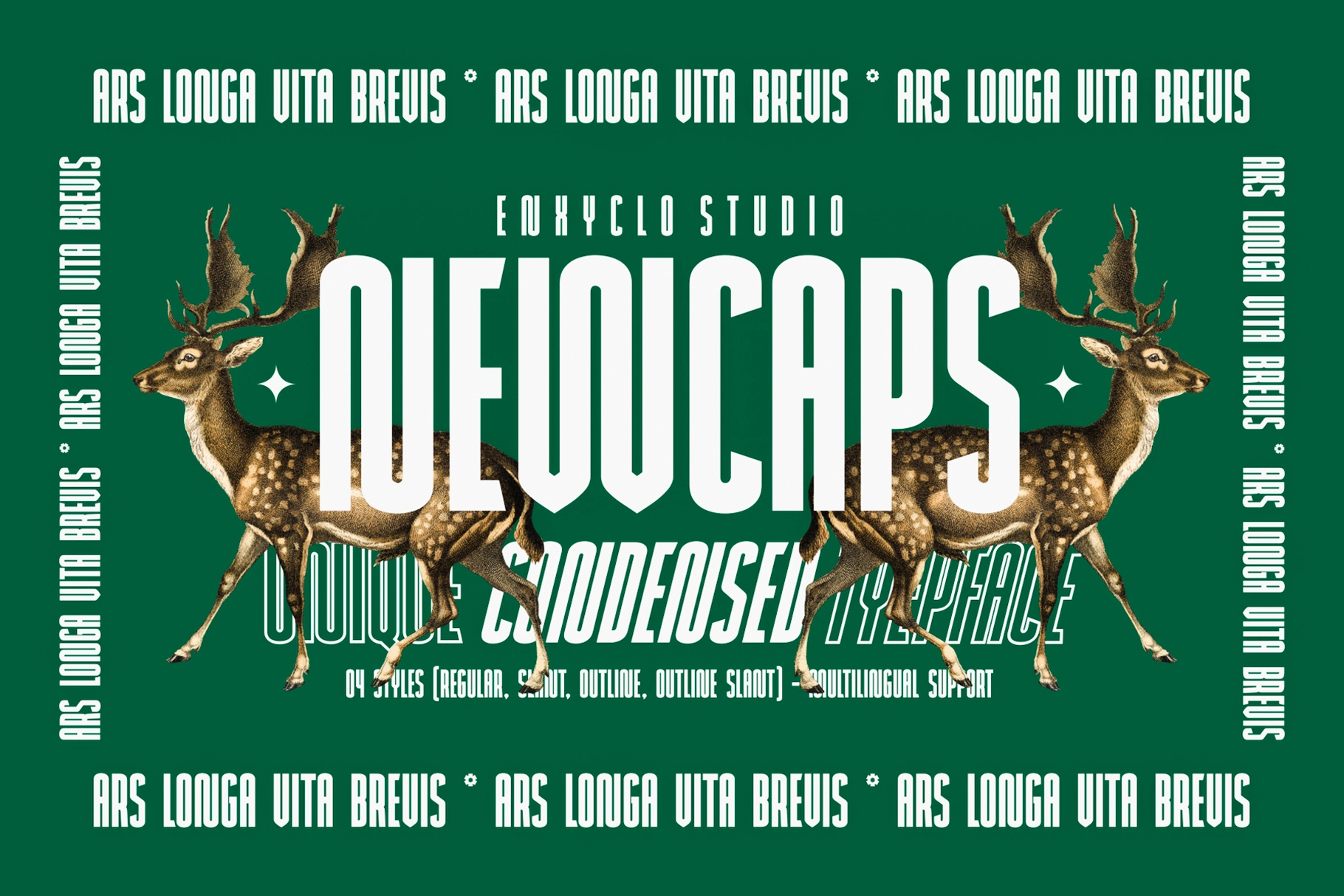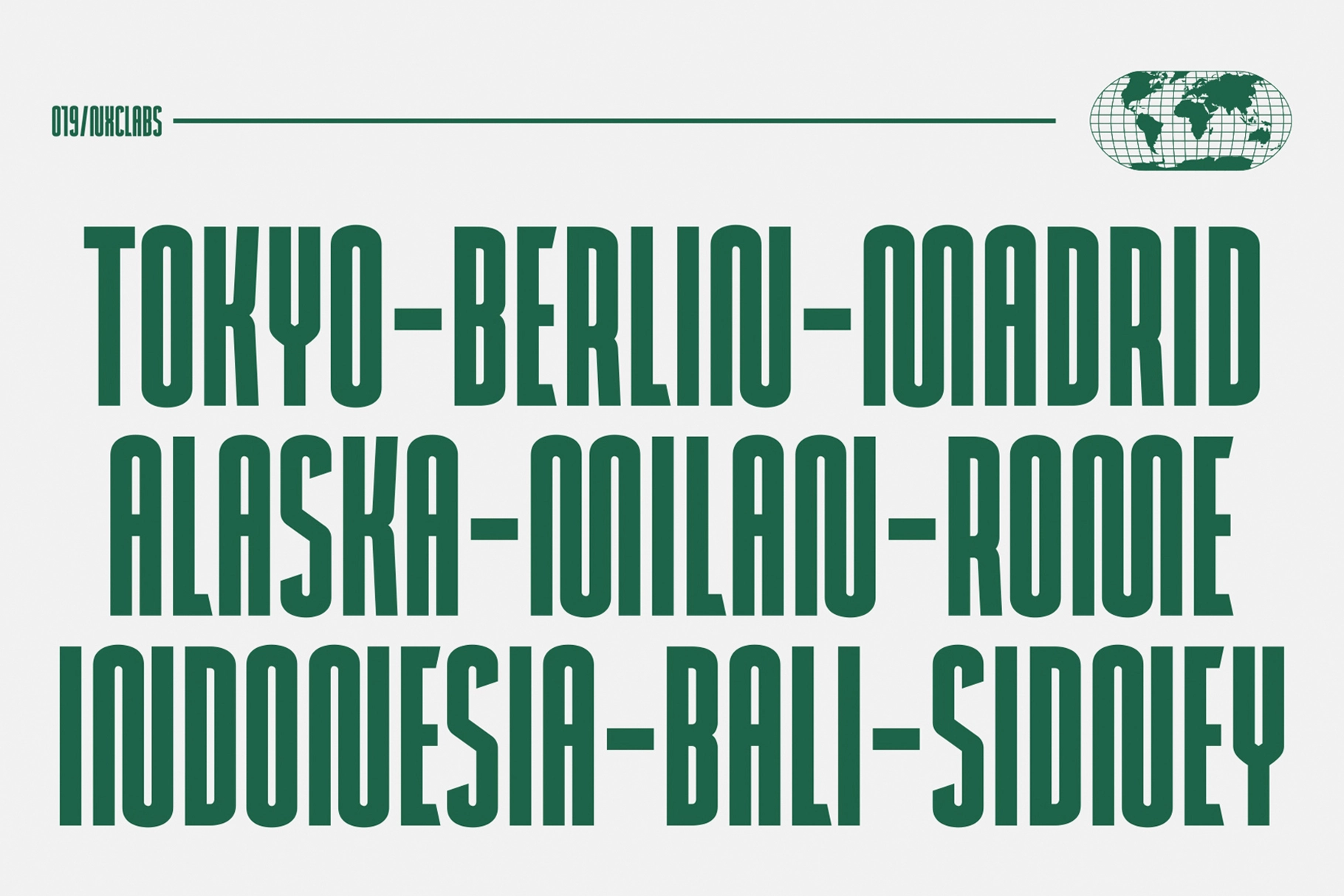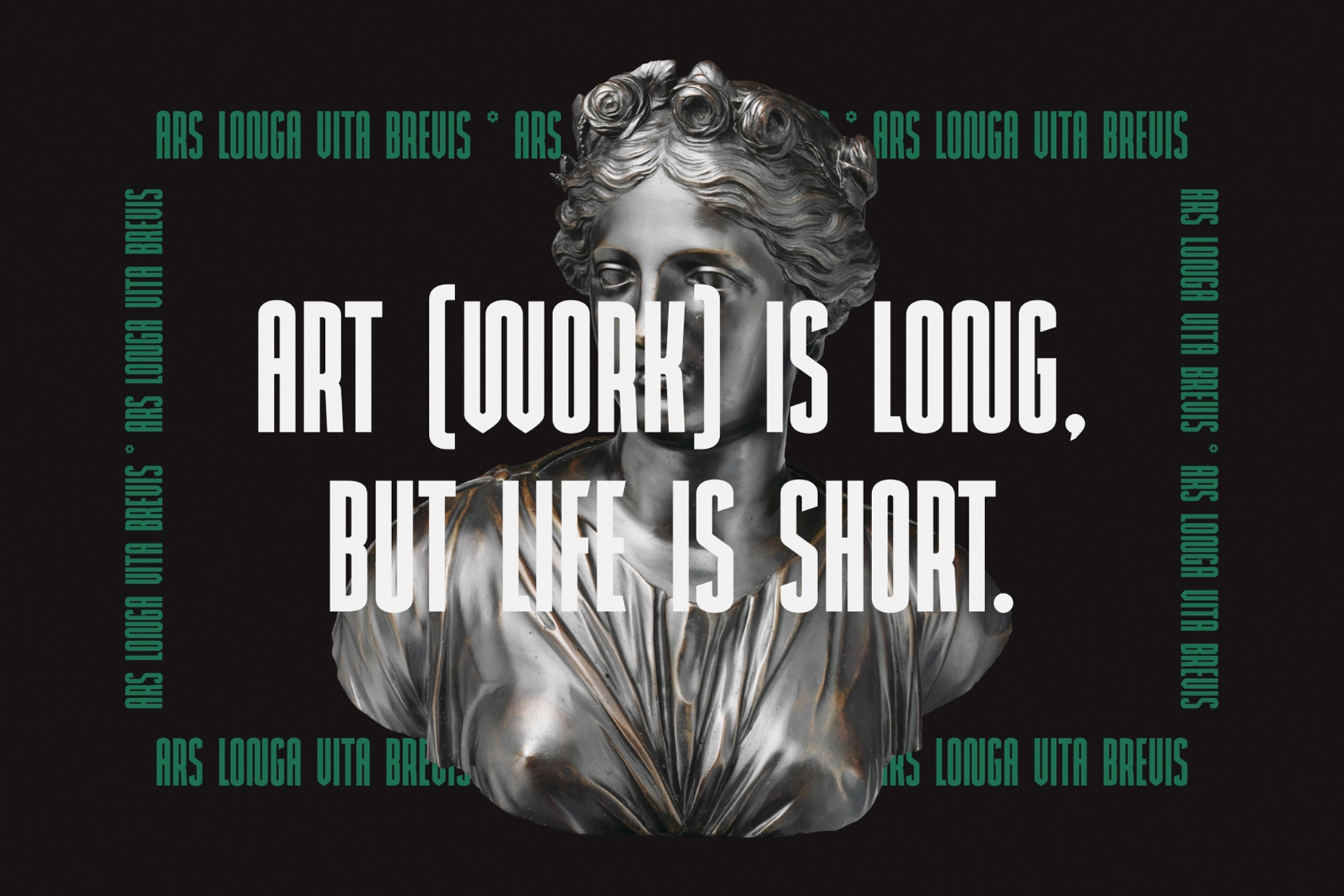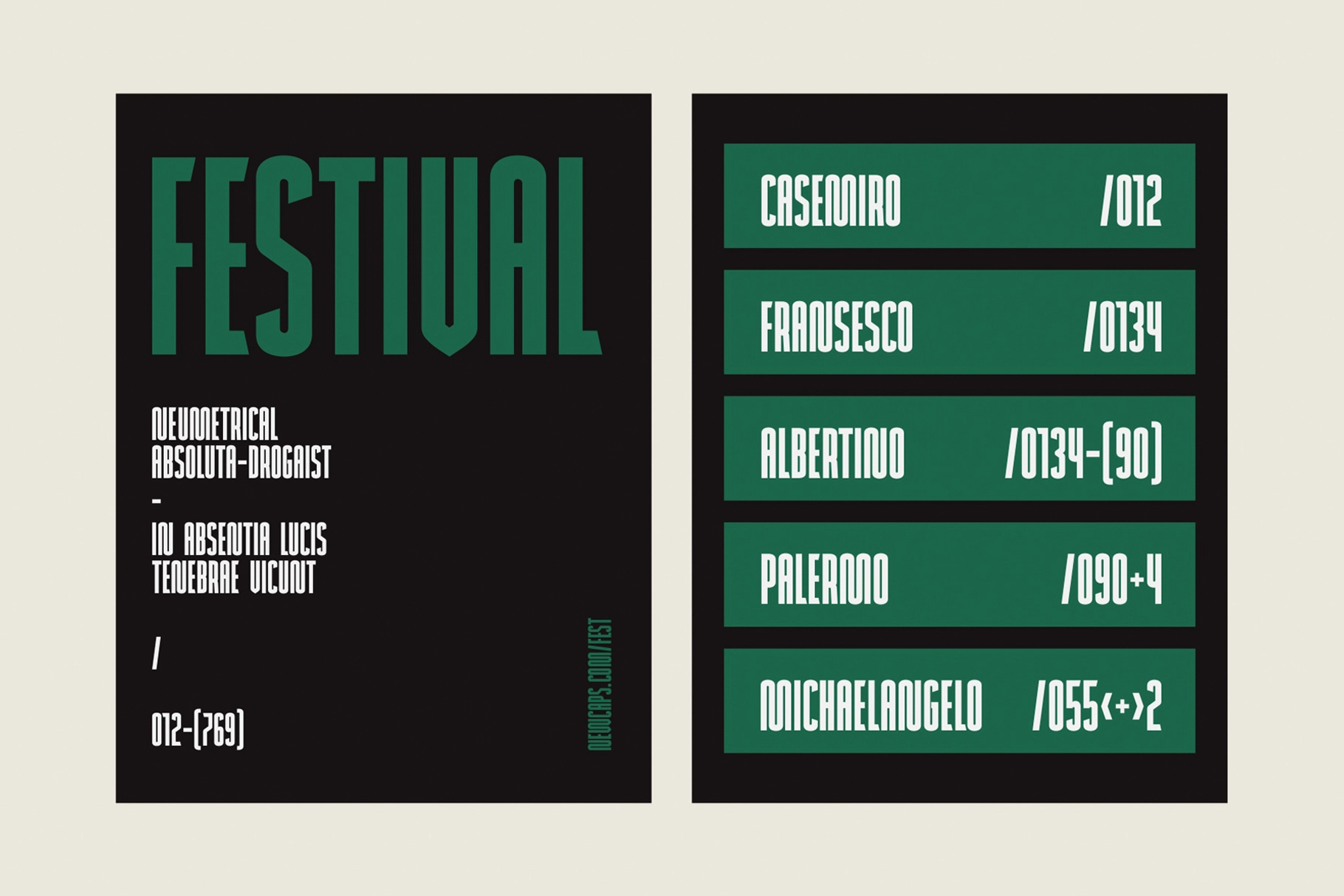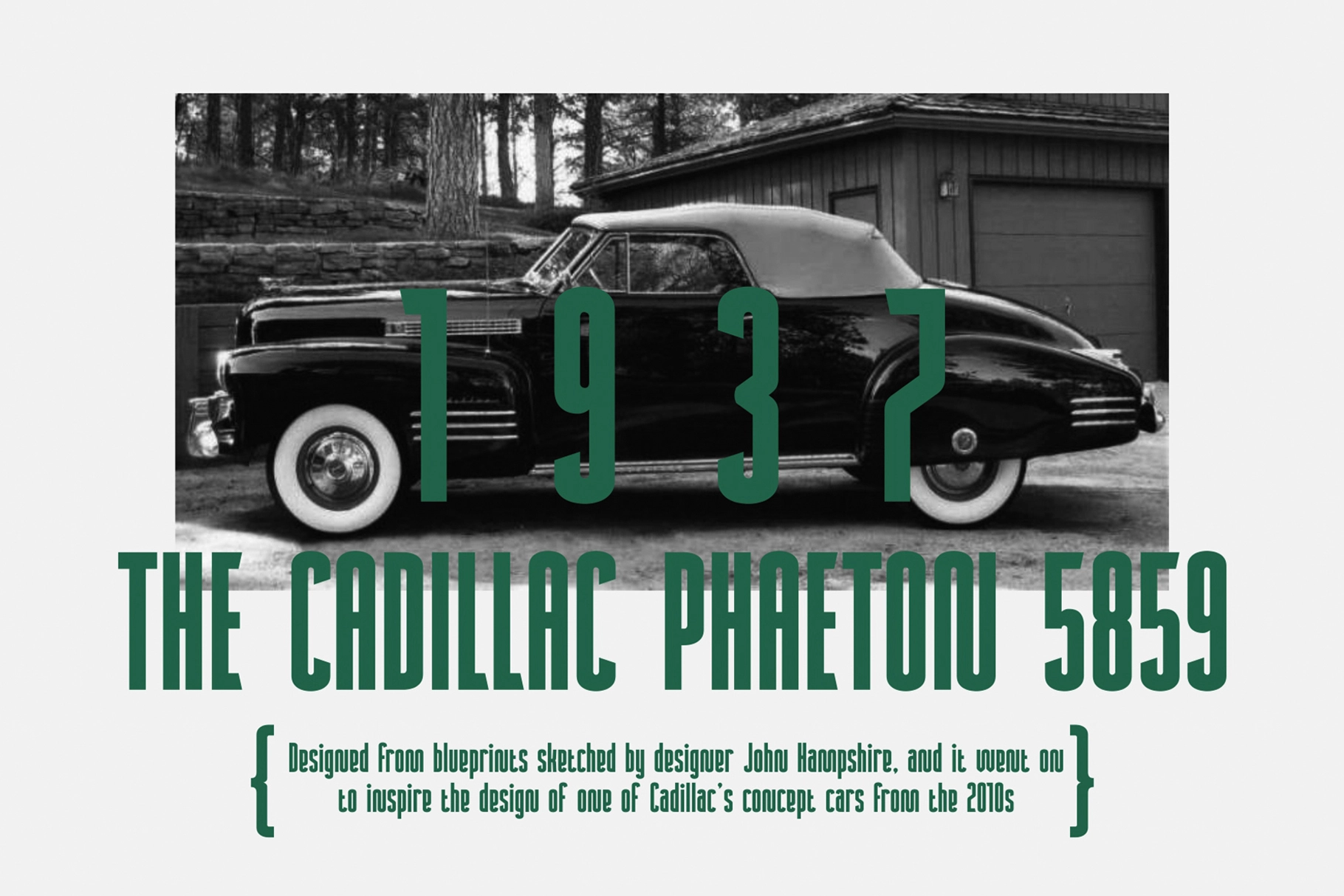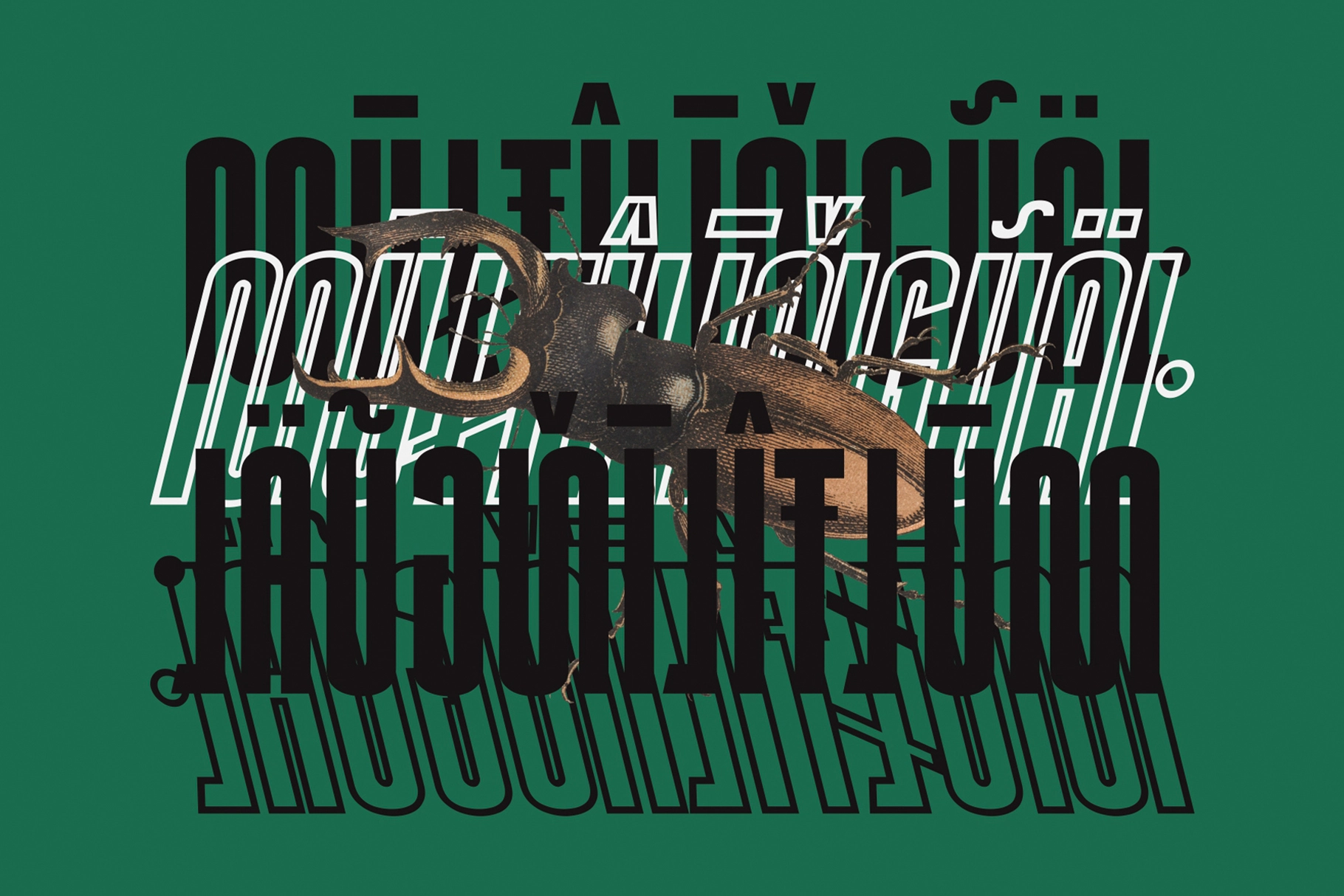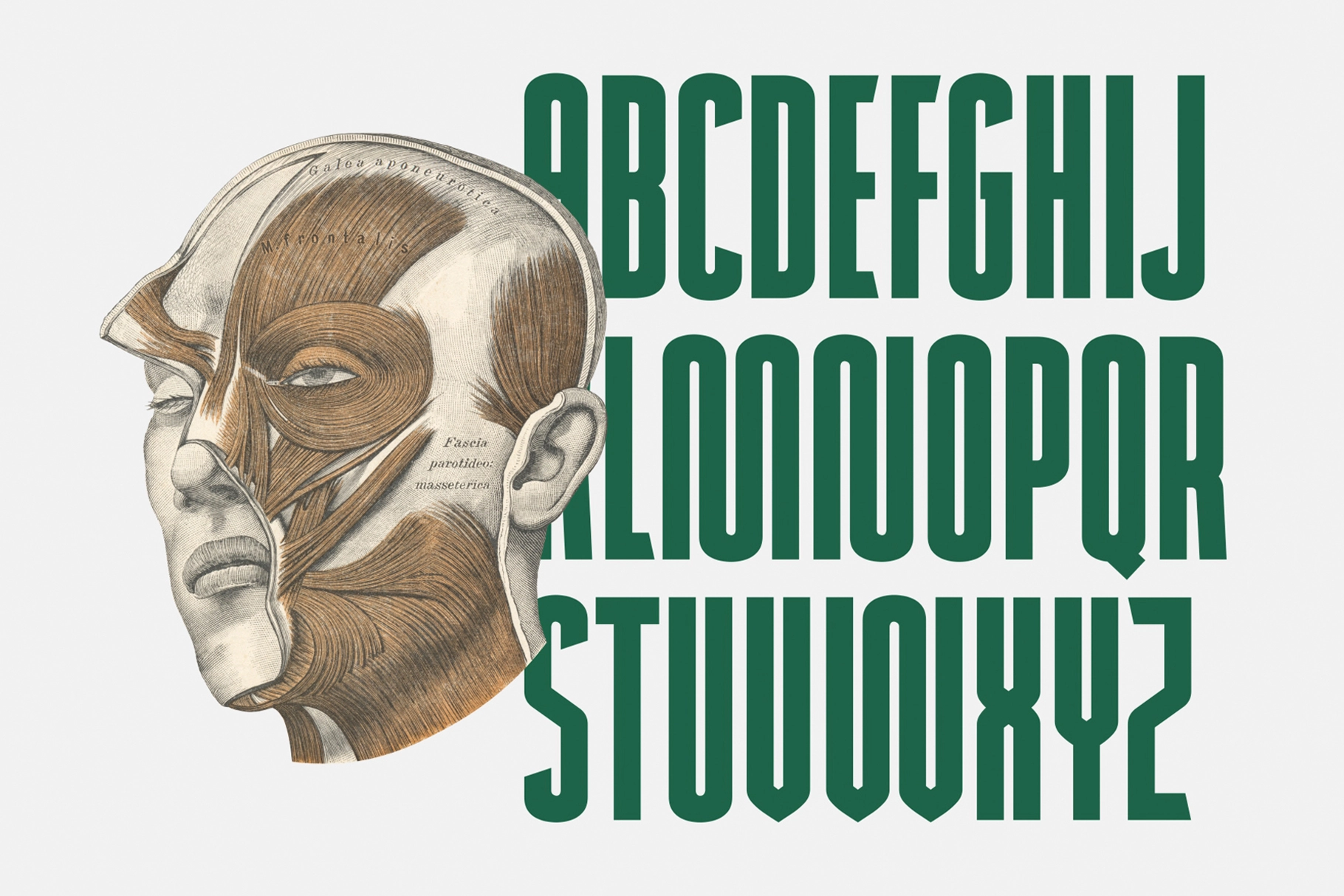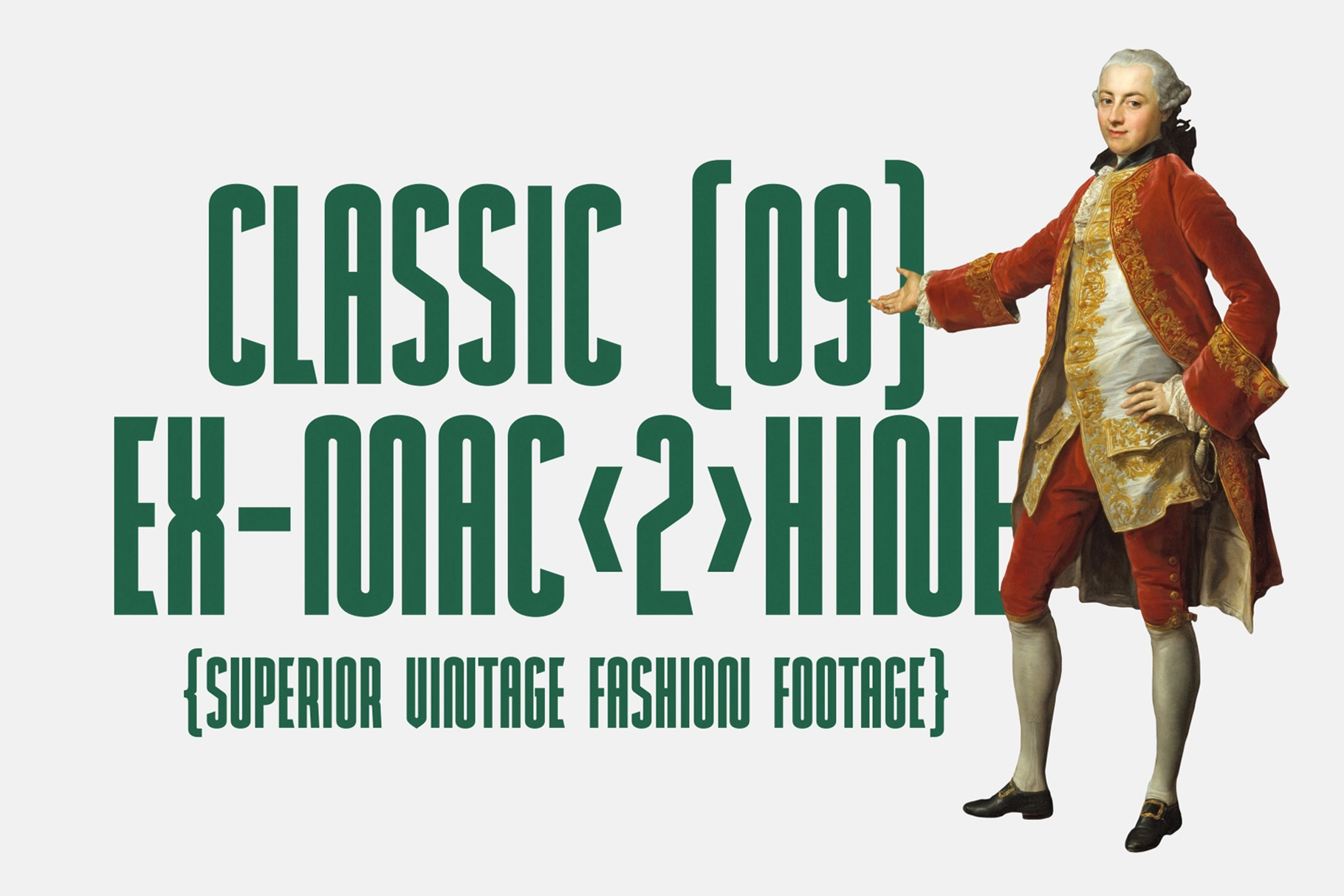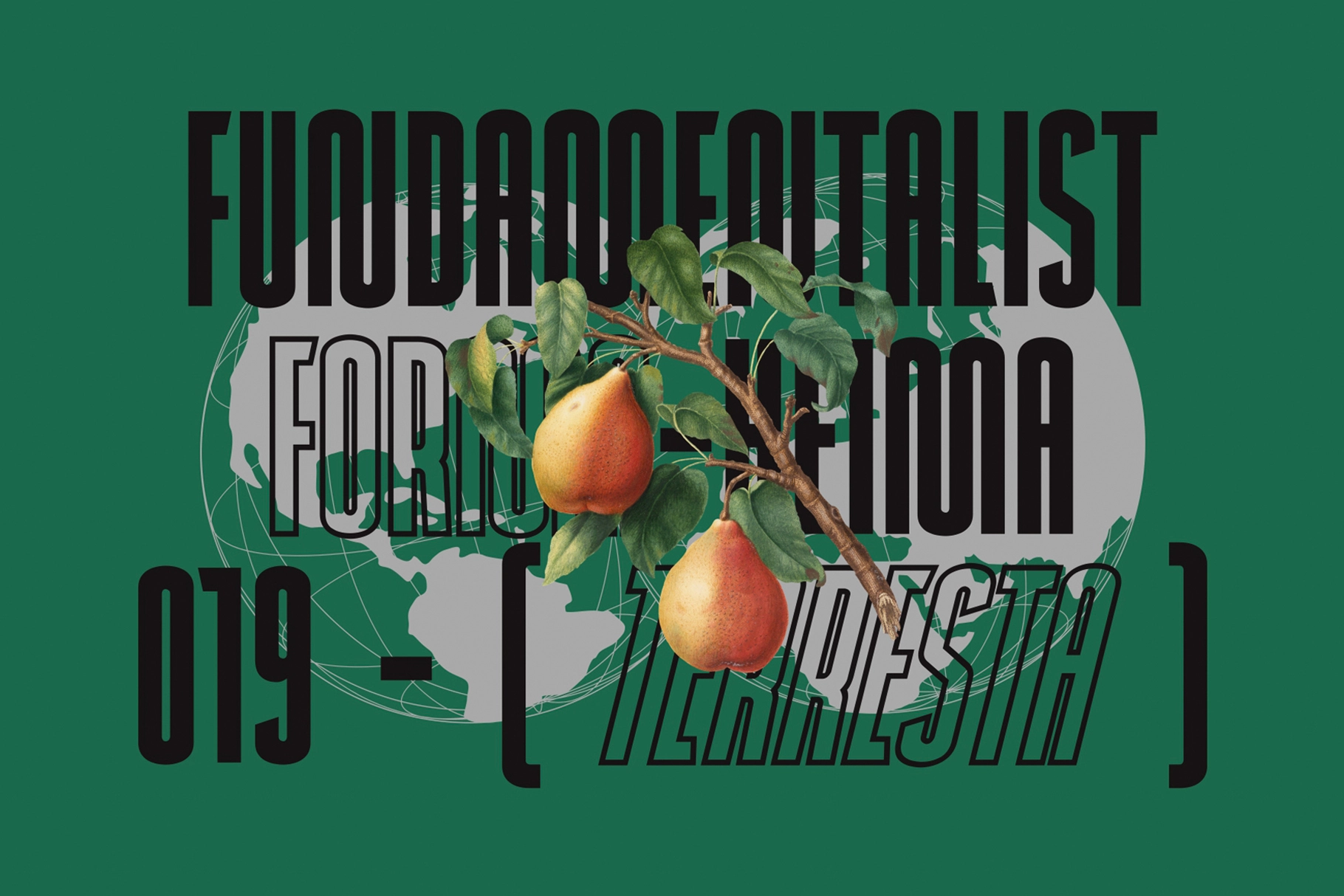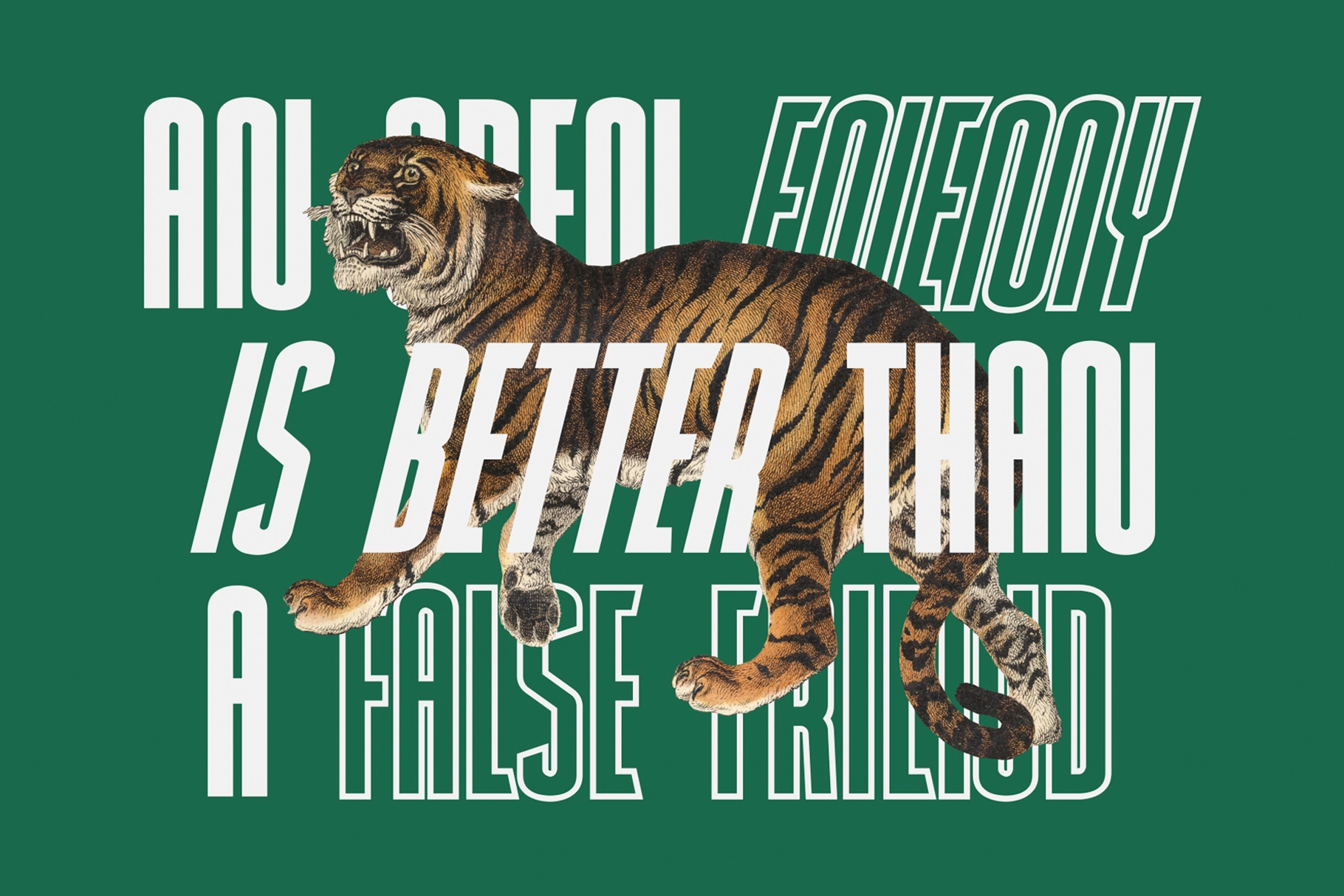
Newcaps
Slant
OutlineSlant
Newcaps is a bold condensed headline display font that features lowercase letters. With this bold typeface, you can be even more expressive in your design projects. With this beautiful font, absolutely you can make your project stand out from the rest. See the previews above to get some inspiration on how to use them.
- Uppercase, Lowercase, Numeral, Punctuation & Symbol